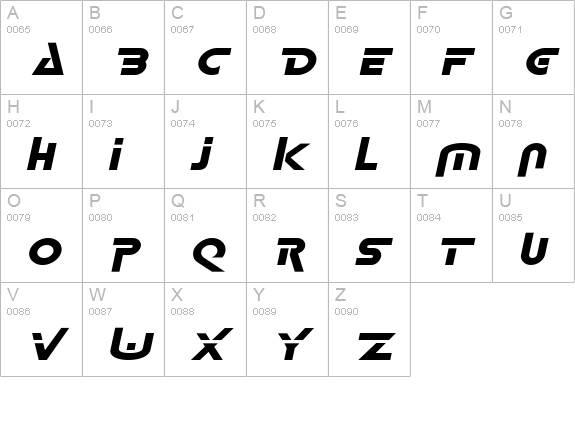
The Delta-ExtendedItalic font is a sleek and sophisticated typeface that exudes elegance and modernity. Its stylish italicized design adds a touch of flair to any text, making it perfect for projects that require a touch of sophistication. The font features extended characters that provide a contemporary look while maintaining readability. And the best part is, the Delta-ExtendedItalic font is available for free download at FontsMarket.com! Whether you're working on a creative design project, crafting elegant invitations, or simply looking to elevate your typography game, this font is a fantastic addition to your collection. Download it today and add a touch of class to your next project.